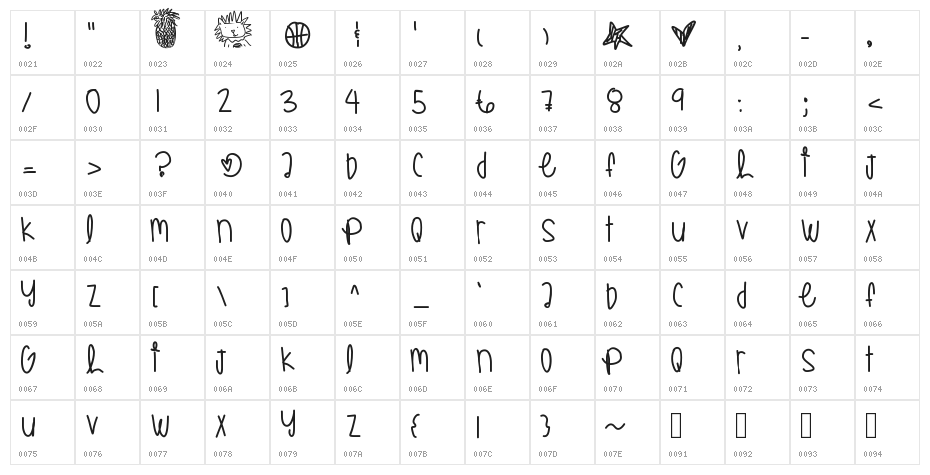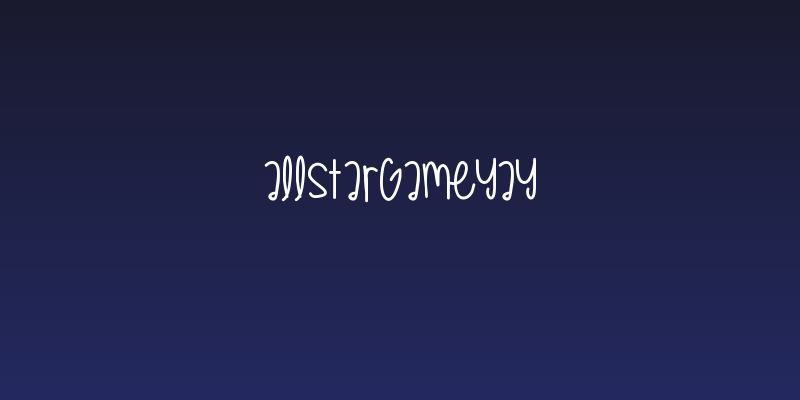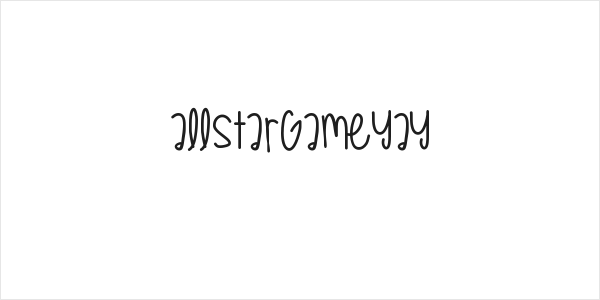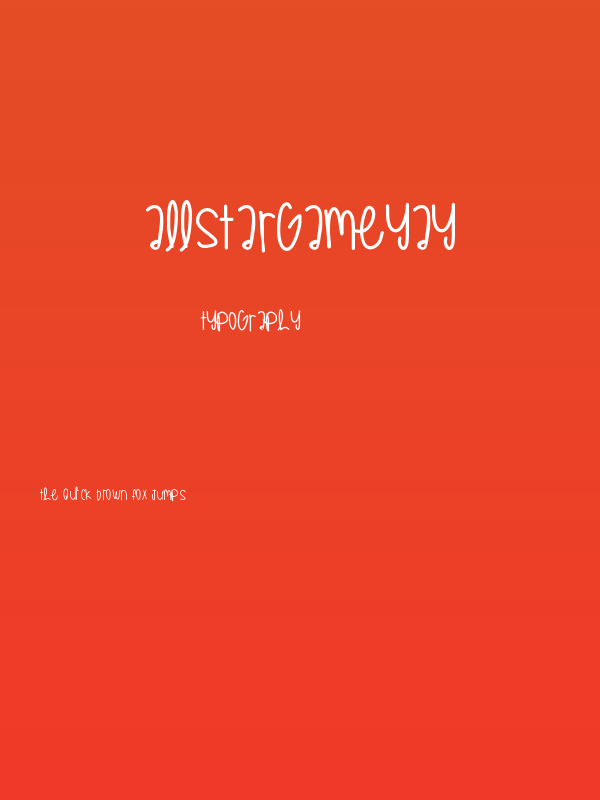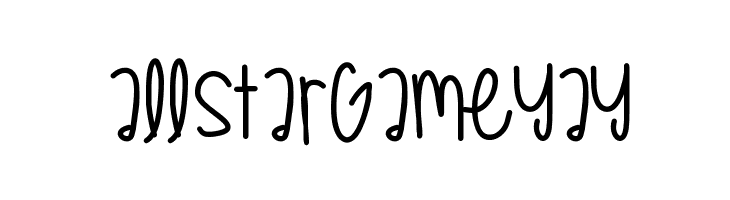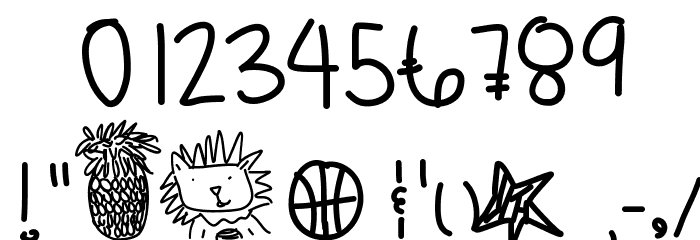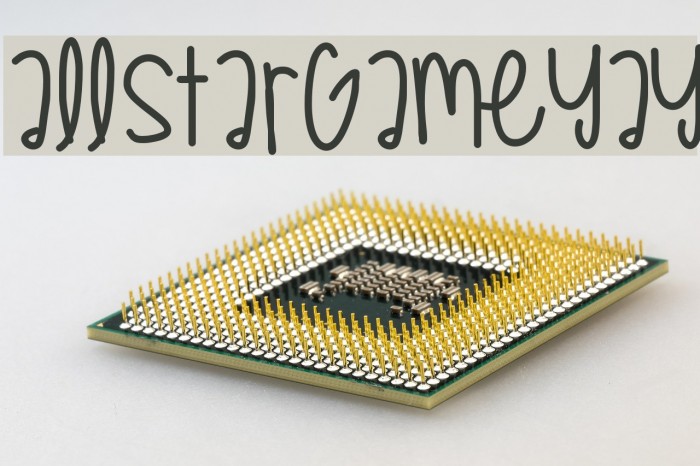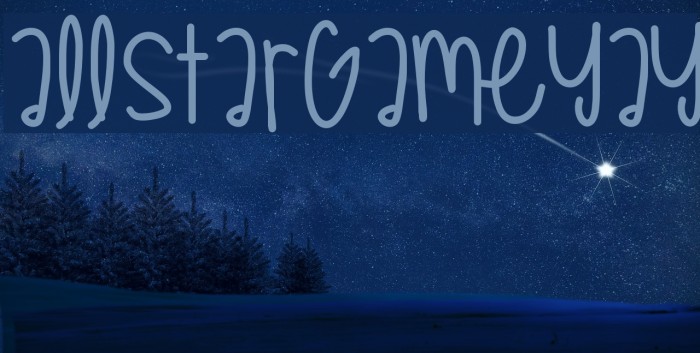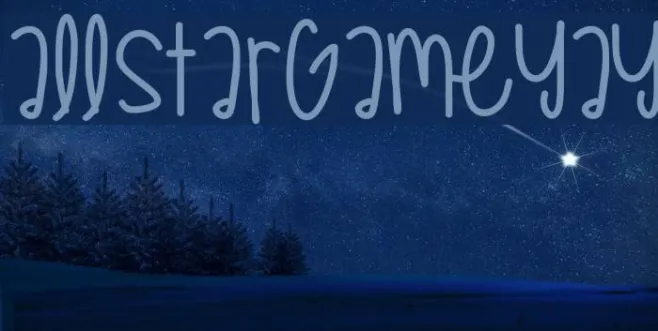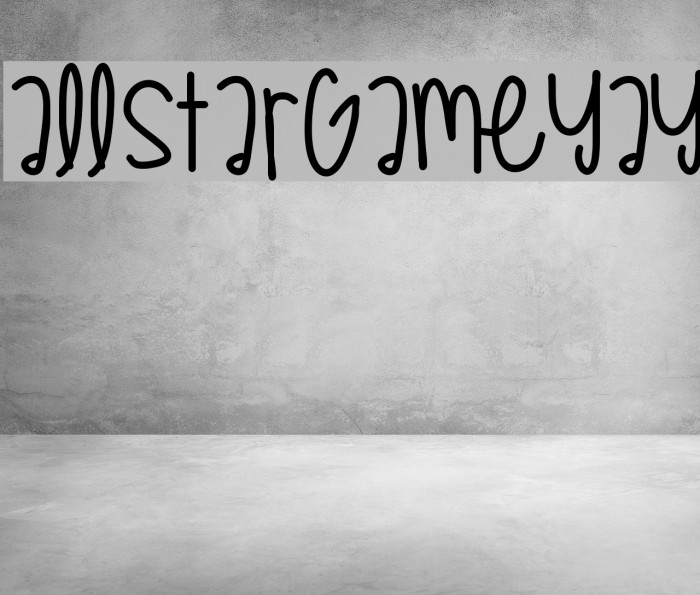
AllStarGameYay Font
AllStarGameYay Description
This playful and whimsical font features a handwritten style with a casual and friendly appearance. The characters are slightly elongated with a consistent stroke width, giving it a uniform look. The lowercase letters have a charming, informal touch, while the uppercase letters maintain a sense of balance and readability. The numbers are clear and easy to distinguish, matching the overall playful theme. Special characters are included, adding versatility to the font. The font's design is ideal for projects that require a personal, approachable feel, such as children's books, greeting cards, or playful branding.
| Use Case | Headlines, Informal text, Branding |
| Proposed Projects | Ideal for children's books, greeting cards, playful branding, and informal invitations. |